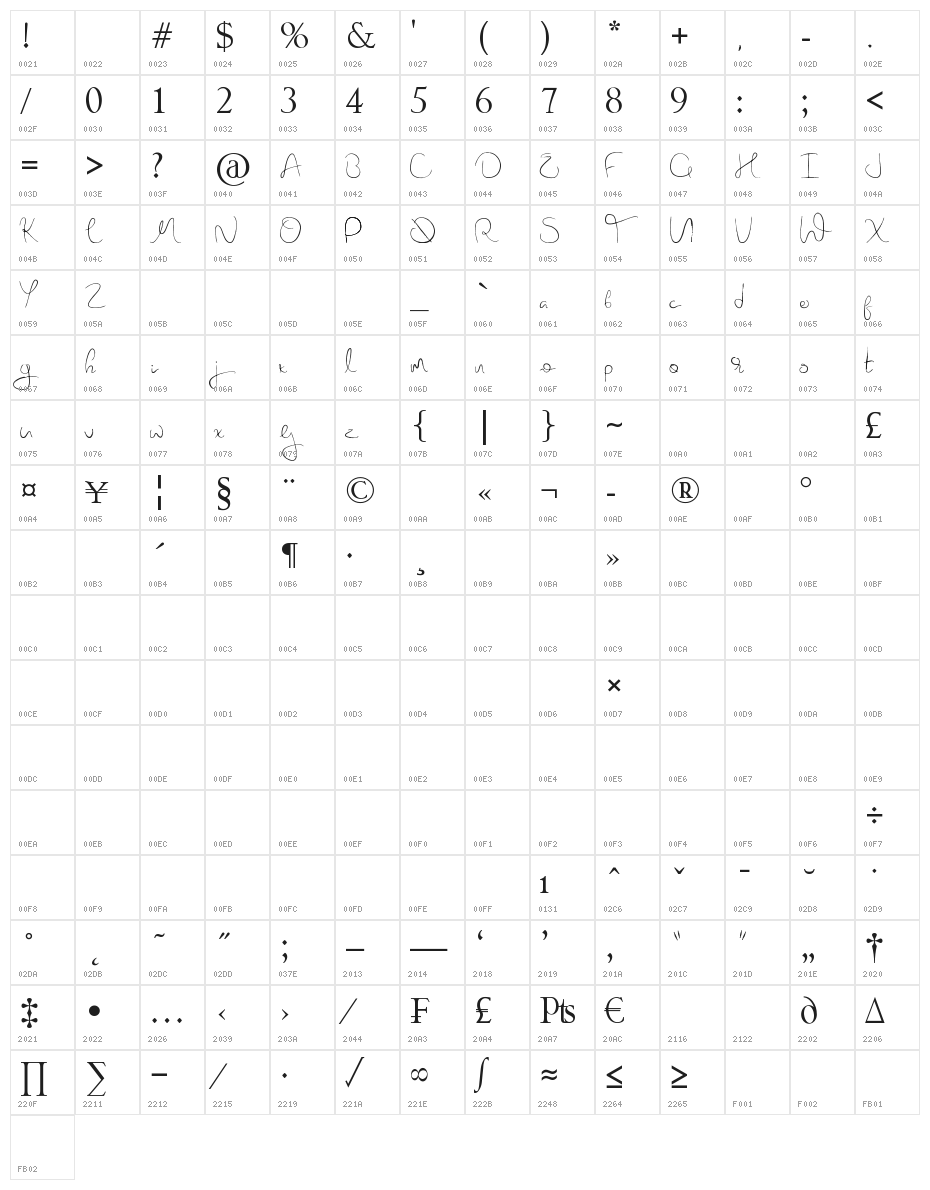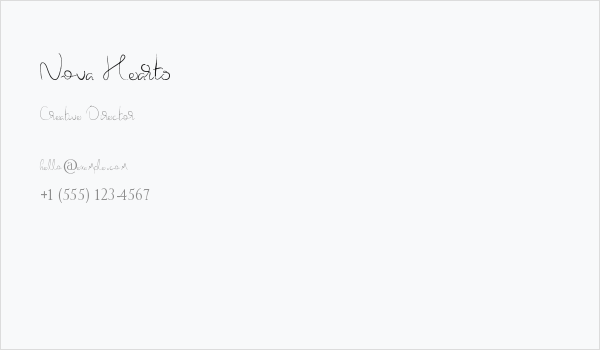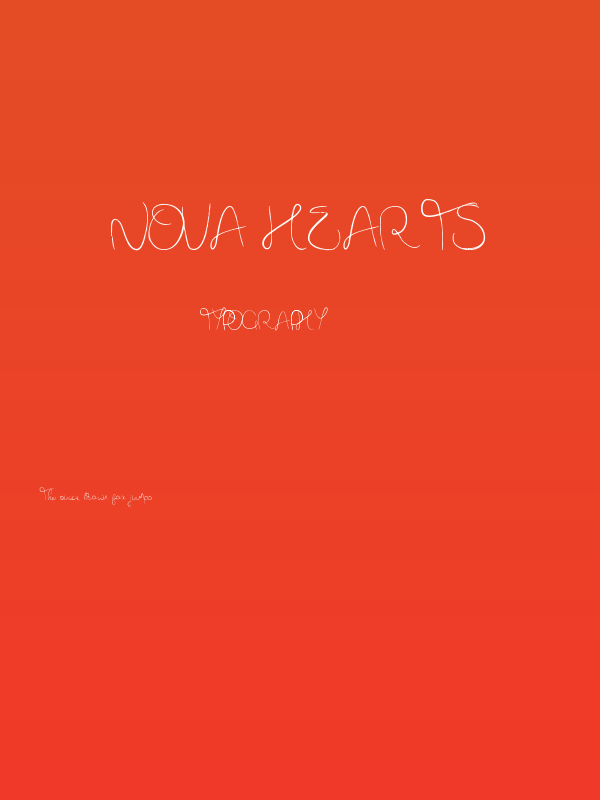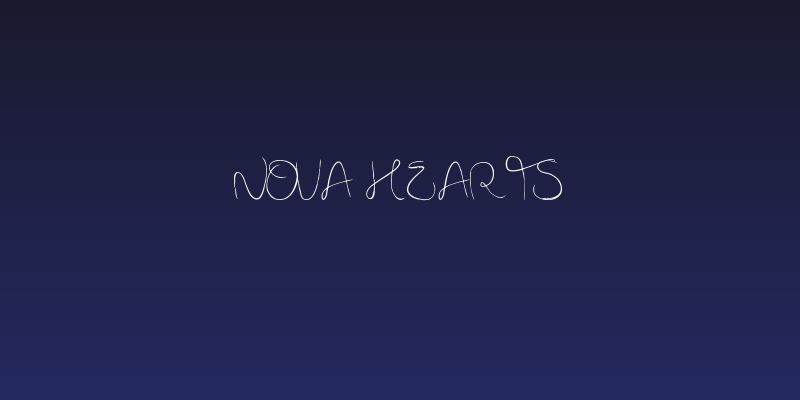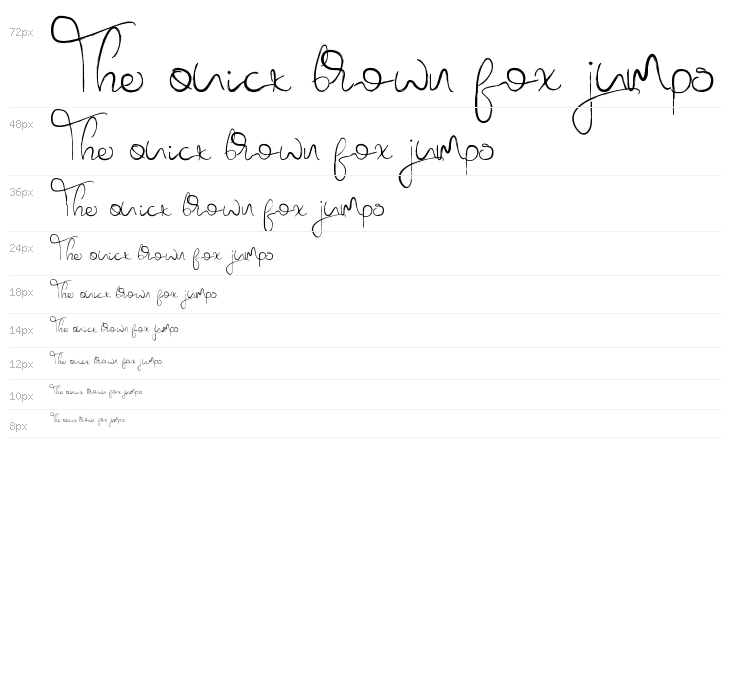
Nova Hearts Font
Nova Hearts Description
This font features a unique blend of script and modern styles, characterized by its flowing, cursive uppercase and lowercase letters. The uppercase letters have a whimsical, artistic flair with varying stroke thickness, giving them a hand-drawn appearance. The lowercase letters maintain a similar style, with some letters connecting smoothly to others, enhancing the script-like quality. The numerals are bold and clear, contrasting with the delicate script letters, making them highly legible. Special characters are included, maintaining the playful yet elegant style of the font. This font is ideal for projects that require a personal touch, such as invitations, greeting cards, or branding materials.
Use CaseHeadlines, Logos, Artistic projects
Proposed ProjectsIdeal for invitations, greeting cards, branding, and artistic projects.